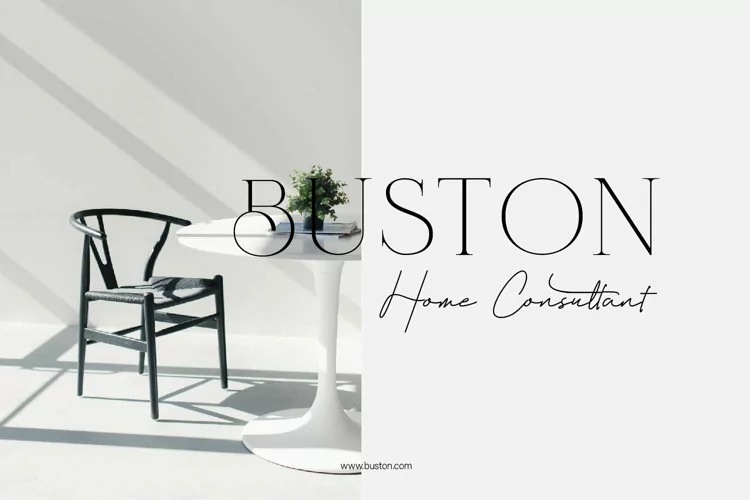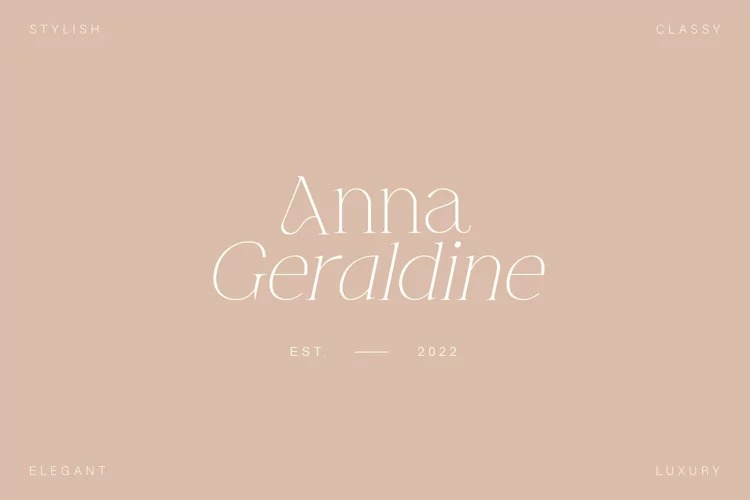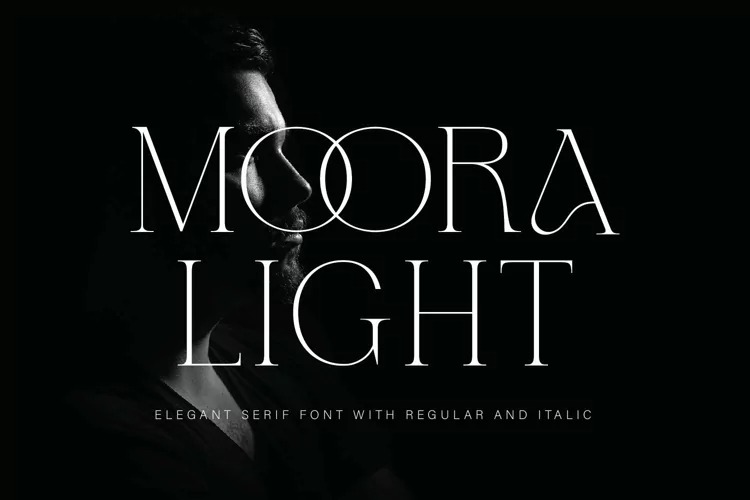
Moora Light Font
Moora Light Serif Font is a comely styled serif font created by rmdndsign with beatiful ligatures, lots of custom alternative glyphs, and multilingual support. Use this serif font to add that special retro stylish touch to any design idea you can think of. This font is PUA encoded which means you can access all of the amazing glyphs and ligatures with ease!